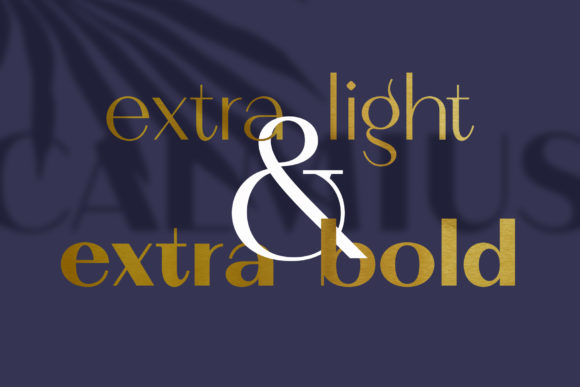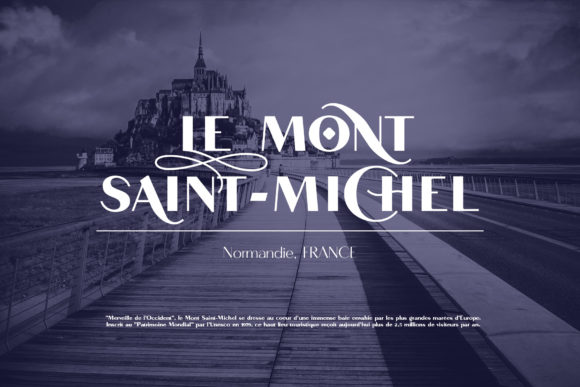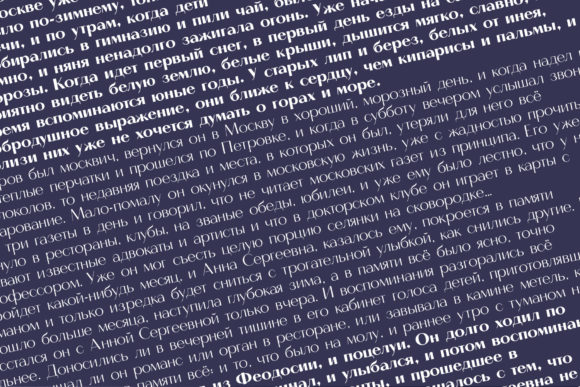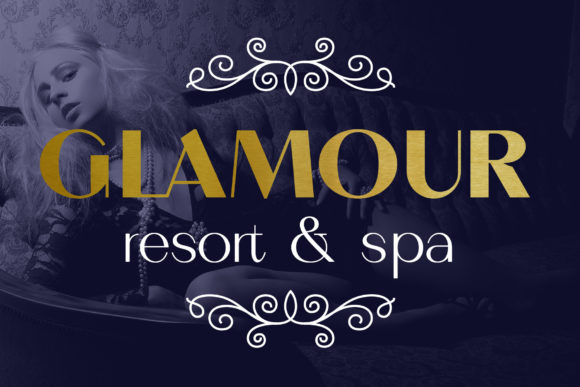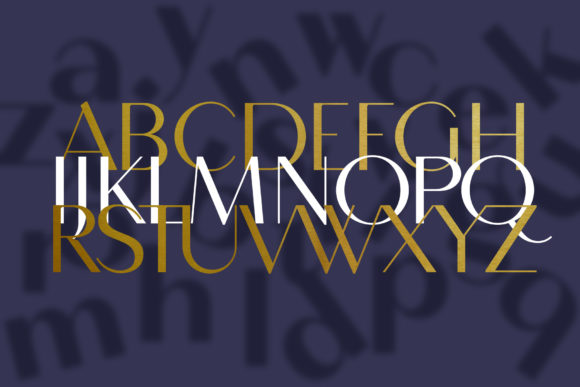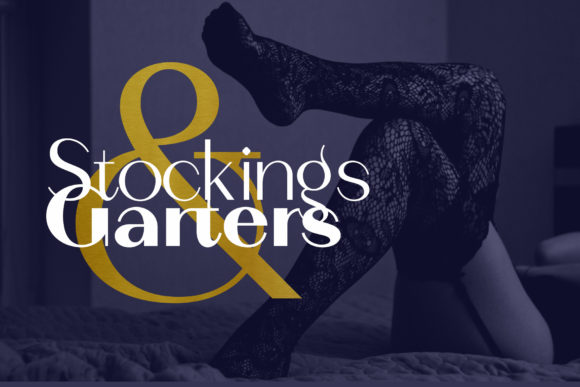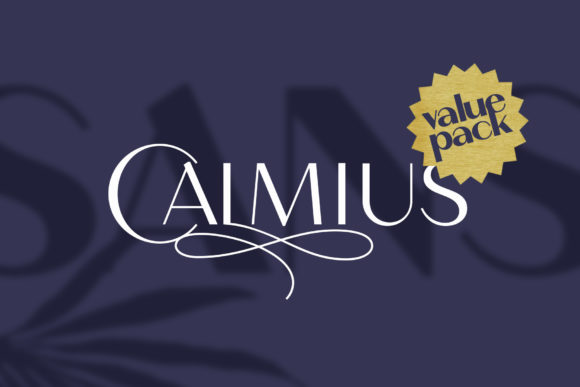
The Elusive Perfect Font: My Encounter with Calmius
I’ll never forget the countless hours I spent searching for the perfect font for a wedding invitation card project. My client wanted something elegant, modern, and sophisticated, but not too over-the-top. I scrolled through font after font, but nothing seemed to fit the bill. That was until I stumbled upon Calmius, an elegant, modern sans-serif font that has since become a staple in my design toolkit.
What is Calmius Font?
Calmius is a stunning sans-serif font inspired by fashion typography. It strikes the perfect balance between modern and vintage aesthetics, making it an excellent choice for a wide range of creative projects. From wedding invitation cards to beauty and fashion package designs, books, magazines, and branding, Calmius is the perfect fit.
What I Love About Calmius ✨
- ✅ Elegant and sophisticated design
- ✅ Perfect blend of modern and vintage aesthetics
- ✅ Highly versatile and adaptable to various design projects
- ✅ Beautifully crafted to ensure excellent readability
- ⚠️ Limited availability of language support (although it’s sufficient for most English-based projects)
- ⚠️ Some users might find the font too delicate for certain design applications
One of the standout features of Calmius is its OpenType features and glyphs. These allow you to customize the font to suit your design needs. Some of the features you can explore include:
- Ligatures: These are special character combinations that can enhance the overall look of your text
- Stylistic alternates: These allow you to switch between different font styles, such as italic or bold
- Glyphs: These are special characters that can add an extra layer of creativity to your design
The Story Behind Calmius
Calmius was designed with the fashion industry in mind. Its creator, a talented typographer, wanted to craft a font that would capture the essence of high-end fashion while still being approachable and elegant. The result is a font that exudes sophistication and style.
Q: What is Calmius font best used for?
A: Calmius is perfect for wedding invitation cards, beauty and fashion package designs, books, magazines, and branding.